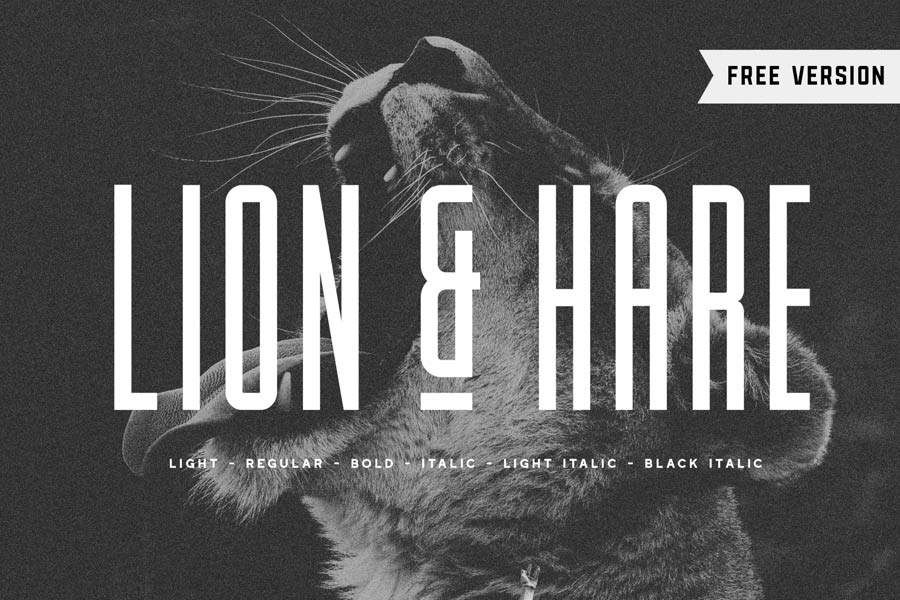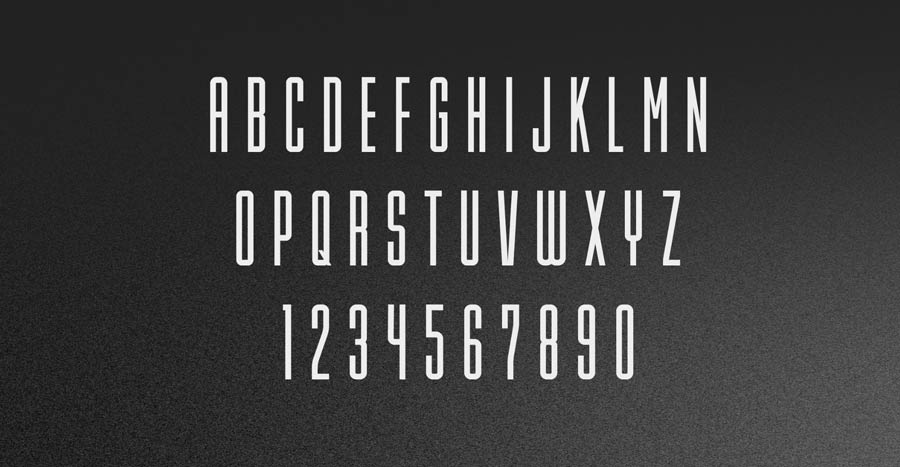
Lion and Hare is an ultra tall and compressed font family that portrays strength and power. Each of the character designs maintain a fairly square edges to to give a consistent geometrical and industrial look to it. This font is perfect for title headers for your magazine, posters, labels, quotes and more and it will complement well with other typefaces for rich typography.